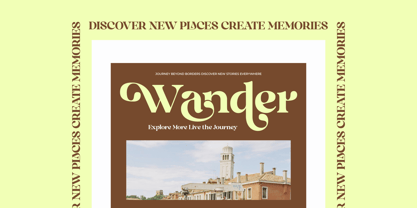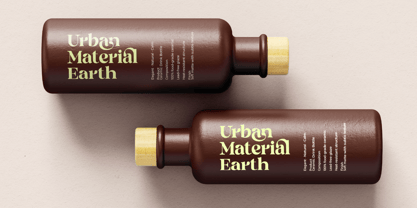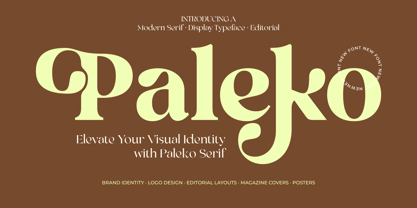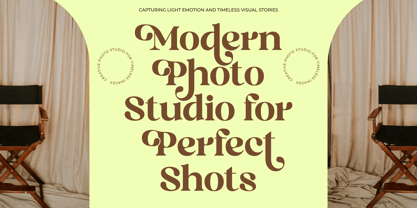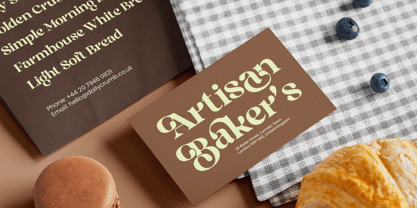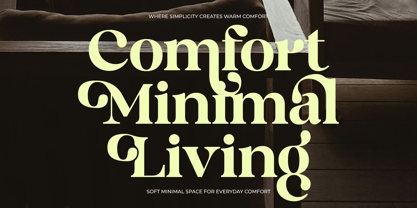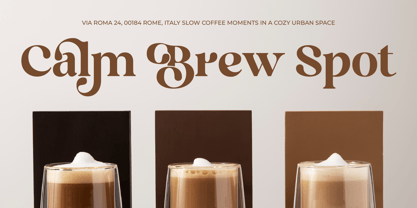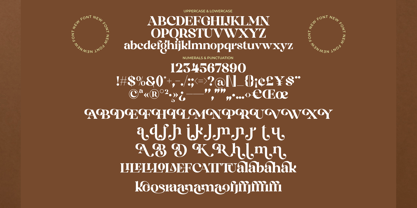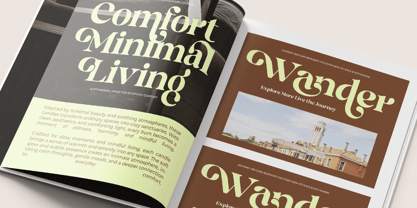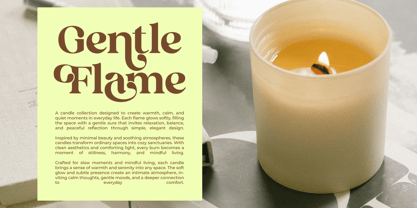
Paleko
Paleko – Modern Display Serif Typeface
Elevate your visual identity with Paleko Serif.
Paleko is a modern display serif typeface crafted for high-impact editorial layouts, contemporary brand identities, and luxury packaging. Combining bold, high-contrast serif structures with fluid, expressive swashes and curved terminals, Paleko brings warmth, sophistication, and a touch of vintage nostalgia to modern design projects.
Whether you're crafting soft minimal living spaces, high-end café branding, or editorial spreads, Paleko turns standard typography into compelling visual stories.
Key Features & Design Highlights
• Expressive & Elegant Alternates: Includes a rich set of stylistic alternates and decorative ligatures featuring sweeping swashes, teardrop terminals, and unique character curves.
• Full Character Set: Features complete Uppercase & Lowercase letterforms, Numerals, Standard Punctuation, Currency Symbols, and Multilingual Accents.
• High-Contrast Display Weight: Designed with striking contrast between thick stems and delicate serifs to command attention at large sizes.
• Versatile Aesthetic: Effortlessly bridges the gap between retro 70s elegance and sleek contemporary minimalism.
Versatile Use Cases
Paleko shines across a wide range of creative applications, as demonstrated in our presentation previews:
• Brand Identity & Logos: Perfect for artisan businesses, coffee roasters, and lifestyle brands.
• Packaging & Product Design: Adds a tactile, premium look to ceramics, cosmetics, and candle collections.
• Editorial & Magazine Layouts: Ideal for headlines, cover art, and travel editorials.
• Posters & Creative Studios: Elevates photography studio signage and promotional posters.
• Stationery & Menus: Creates memorable business cards and bakery menus.